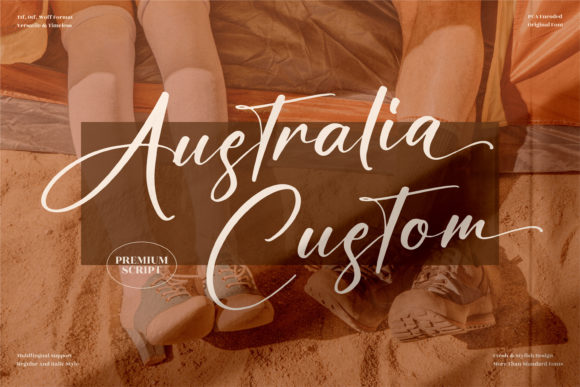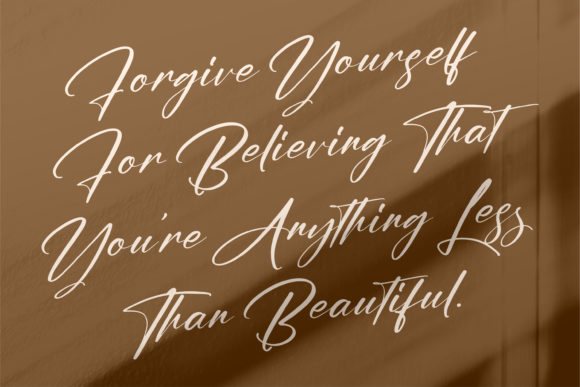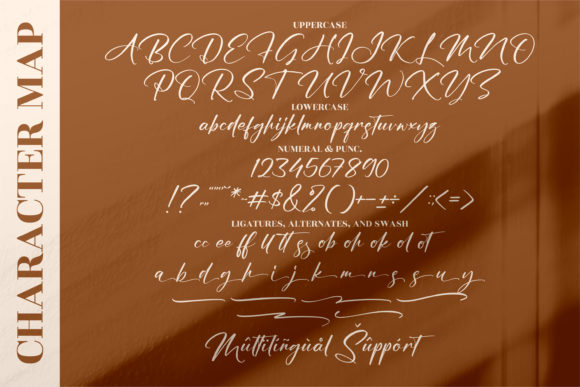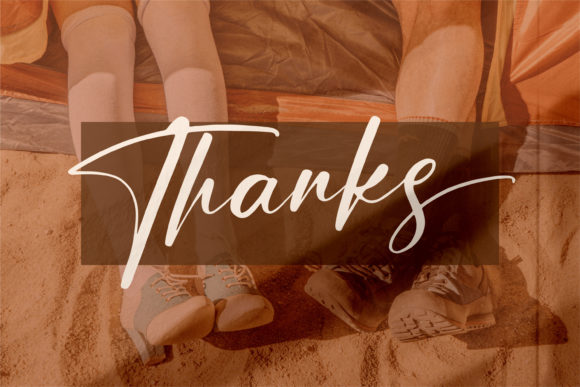
About Australia Custom Font
Australia Custom is a lovely script font featuring charming, playful characters that seem to dance along the baseline. This font is PUA encoded which means you can access all of the glyphs and swashes with ease!